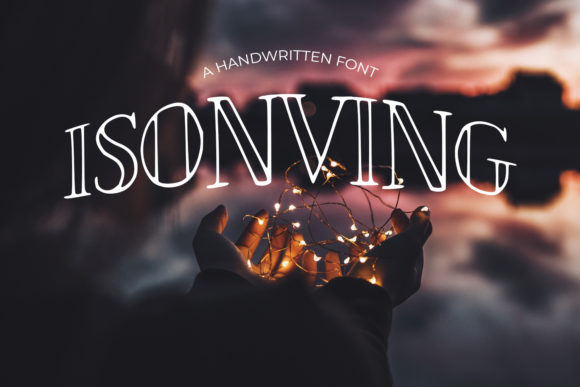
Introducing Isonving – A Font That Reflects Your Ambition
In the world of resumes, first impressions matter. A well-crafted CV can open doors to new opportunities, and a poorly designed one can leave you overlooked. With Isonving, a bold and authentic serif font, you can create a modern CV that exudes confidence and professionalism.
Isonving is not just a font; it's a statement of intent. Its sharp serifs and clean lines evoke a sense of authority and sophistication. This font is designed to make your words stand out, whether you're applying for a job in a corporate setting or showcasing your skills as a creative professional.
With Isonving, you can create a CV that reflects your unique personality and aspirations. Its versatility allows you to experiment with different layouts and design elements, ensuring that your CV stands out from the crowd. The font's readability is meticulously crafted to ensure your words are easily absorbed by recruiters, leaving a lasting impression.
Elevate Your CV to New Heights
In a competitive job market, it's essential to have a CV that commands attention. Isonving is the perfect font to help you achieve this. Its ability to convey both strength and creativity makes it an ideal choice for professionals looking to make a lasting impression.
But Isonving isn't just limited to CVs. Its versatility extends to a wide range of creative projects. Whether you're designing logos, crafting social media graphics, or creating stunning presentations, Isonving adds a touch of elegance and sophistication to your work. Its timeless beauty transcends trends, ensuring that your designs remain relevant and impactful.
With Isonving, the possibilities are endless. Unleash your creativity and let your words flow effortlessly. This font is your passport to a world of professional success and creative fulfillment.